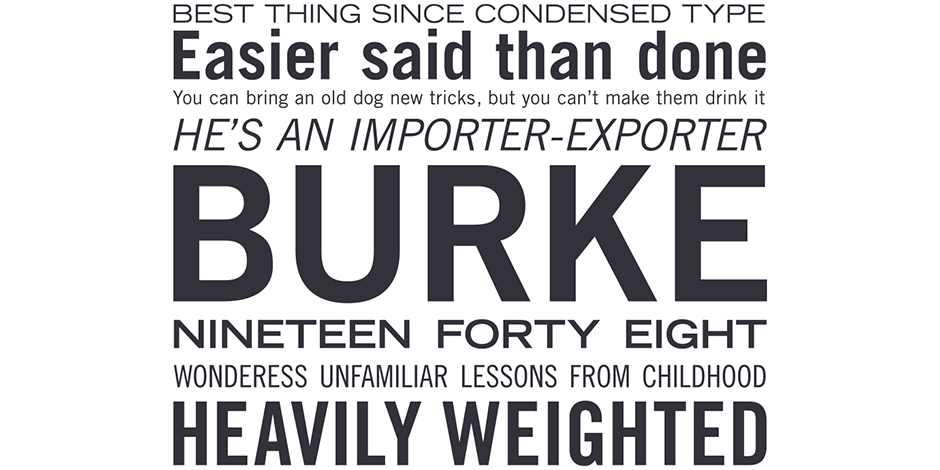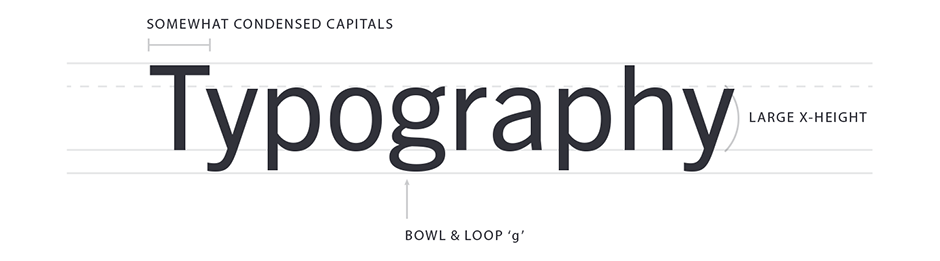
Trade Gothic® Next Font Field Guide
FOUNDRY: Linotype, DESIGNERS: Akira Kobayashi and Jackson Burke & CLASSIFICATION: Sans Serif and Grotesque Sans
Best Practices
The Trade Gothic® Next family maintains the distinctive Mid-20th century design traits of the original Trade Gothic design, but benefits from a large systematic suite of weights.
FAMILY
The Trade Gothic Next family has four weights from light to heavy in regular and condensed proportions. Each roman design has an italic counterpart. In addition, the family has three compressed designs in regular, bold and heavy weights; In total 17 designs.
Font Facts
- The News Gothic™ family is very similar to Trade Gothic.
- The first designs were developed as alternatives to European sans serif typefaces of the 1920s and 1930s.
Roots
The first of the typefaces that were to eventually make up the Trade Gothic family were released in the late 1940s. They went by the simple names of “Gothic” with a numeric suffix (Gothic No. 17 through No. 20). These were condensed sans serif designs that proved to be very popular for what was then called “jobbing” or “trade” work. It wasn’t until several years later that designs of regular proportions were drawn and the group of faces was given the name of “Trade Gothic.”
Akira Kobayashi, one of Monotype’s type directors, took the design of Trade Gothic and updated to modern digital standards. Without losing the original’s natural personality, the new design is a more elegant – and much more versatile – typographic tool.
Legibility
Open counters, a large x-height and condensed proportions make Trade Gothic a highly legible and space economical design.
How To Spot Trade Gothic Next
Alternate Choices
Perfect Pairing